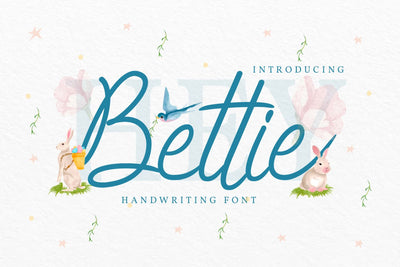
Hey Bettie
Introducing Hey Bettie Font by Tlatoustype
Hey Bettie is a Modern Handwritten Script Font.
Hey Bettie is perfect for book cover, product packaging, branding project, megazine, social media, wedding, or just used to express words above the background.